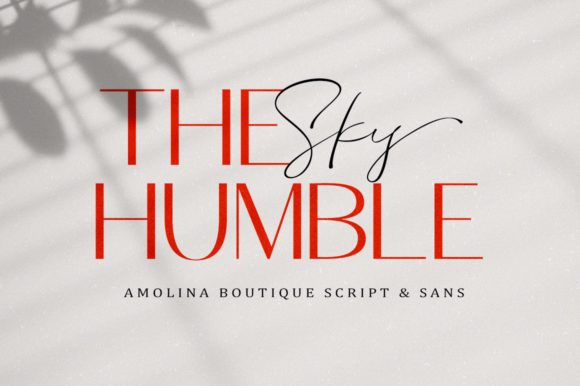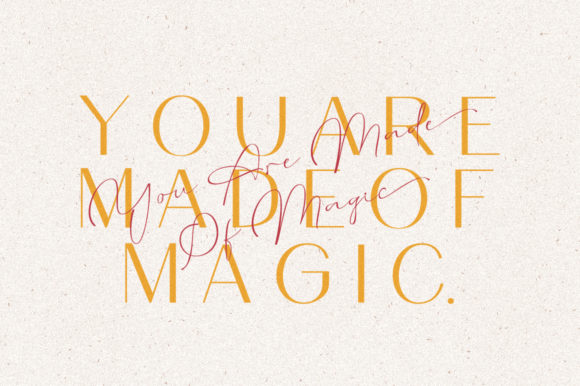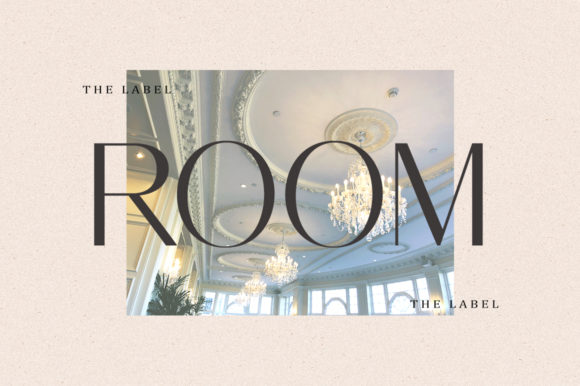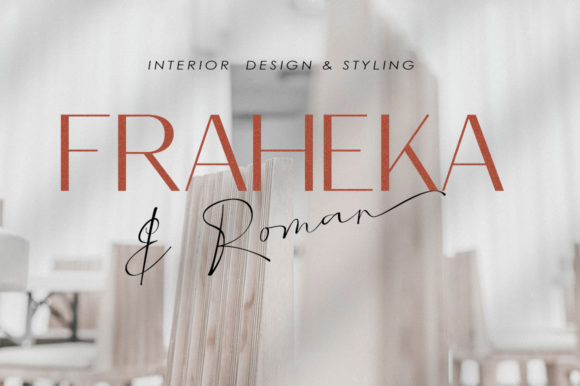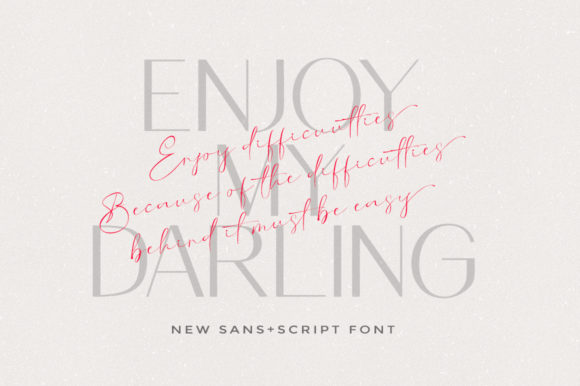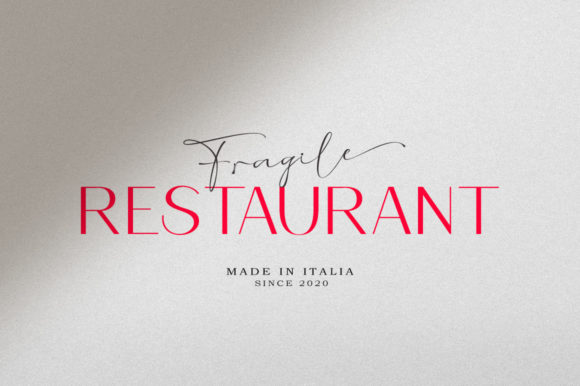
Introducing Amolina Boutique Font: Elevate Your Designs with Style
Are you tired of using the same old fonts in your designs? Look no further! Amolina Boutique Font is a game-changing duo font that combines the clean lines of sans serif with the elegance of script. This versatile font is perfect for designers and crafters who want to take their creative projects to the next level.
The Perfect Pair: Sans Serif and Script
Amolina Boutique Font is a unique duo font that includes both sans serif and script styles. The sans serif font is perfect for headlines, titles, and body text, while the script font adds a touch of elegance and sophistication. The two fonts work seamlessly together, allowing you to create stunning designs that are both modern and refined.
Incredibly Versatile
One of the best things about Amolina Boutique Font is its versatility. This font can be used in a wide range of designs, from fashion and beauty to lifestyle and travel. Whether you’re creating a logo, brochure, or social media graphics, Amolina Boutique Font is the perfect choice. Its clean lines and elegant script make it easy to read and visually appealing.
Elevate Your Designs to the Highest Levels
Amolina Boutique Font is designed to elevate your designs to new heights. Its unique combination of sans serif and script styles adds a touch of sophistication and style to any project. Whether you’re a professional designer or a DIY crafter, this font is sure to impress. With Amolina Boutique Font, you can create stunning designs that stand out from the crowd.
Add a Touch of Elegance to Your Creative Ideas
Are you looking for a way to add a touch of elegance to your creative projects? Amolina Boutique Font is the perfect solution. This font is designed to make your designs come alive, adding a level of sophistication and style that’s hard to achieve with other fonts. Whether you’re creating a brand identity, packaging, or marketing materials, Amolina Boutique Font is the perfect choice.
Amolina Boutique Font is perfect for designers and crafters who want to take their creative projects to the next level. Whether you’re a professional designer or a DIY enthusiast, this font is easy to use and versatile. With Amolina Boutique Font, you can create stunning designs that showcase your creativity and style.
Key Features of Amolina Boutique Font
- Duo font: Includes both sans serif and script styles
- Versatile: Perfect for a wide range of designs, from fashion to lifestyle
- Elegant: Adds a touch of sophistication and style to any project
- Easy to read: Clean lines and clear lettering make it easy to read
- Perfect for designers and crafters: Easy to use and versatile
If you’re ready to take your designs to the next level, Amolina Boutique Font is the perfect choice. With its unique combination of sans serif and script styles, this font is sure to elevate your creative projects and add a touch of elegance and sophistication. So why wait? Add Amolina Boutique Font to your favorite creative ideas and watch them come alive!
| Font Name | Amolina Boutique Font |
| Author | LetterFreshStudio |
In conclusion, Amolina Boutique Font is a game-changing duo font that’s perfect for designers and crafters who want to take their creative projects to the next level. With its versatility, elegance, and ease of use, this font is sure to become a favorite in your design toolkit. So why wait? Try Amolina Boutique Font today and see the difference it can make in your designs!